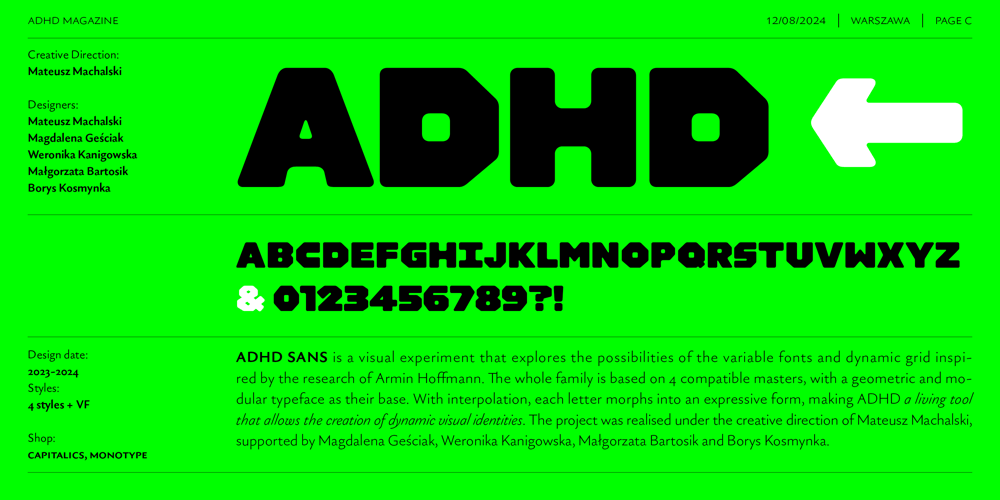
Adhd Sans Font Family was designed by Mateusz Machalski and published by Machalski. Adhd Sans contains 5 styles and family package options. ADHD SANS is a visual experiment that explores the possibilities of the variable fonts and dynamic grid inspired by the research of Armin Hoffmann. The whole family is based on 4 compatible masters, with a geometric and modular typeface as their base. With interpolation, each letter morphs into an expressive form, making ADHD a living tool that allows the creation of dynamic visual identities. The project was realised under the creative direction of Mateusz Machalski, supported by Magdalena Geściak, Weronika Kanigowska, Małgorzata Bartosik and Borys Kosmynka.